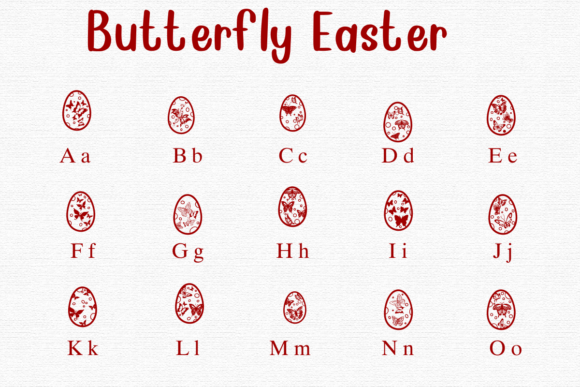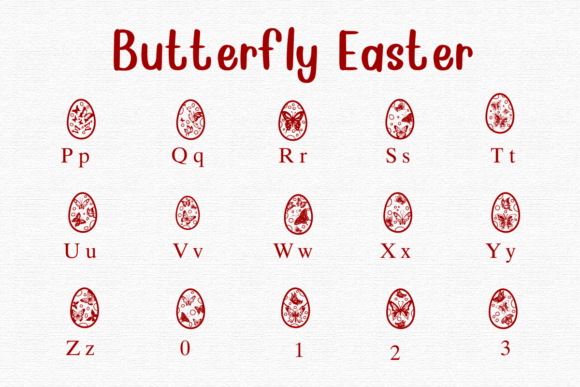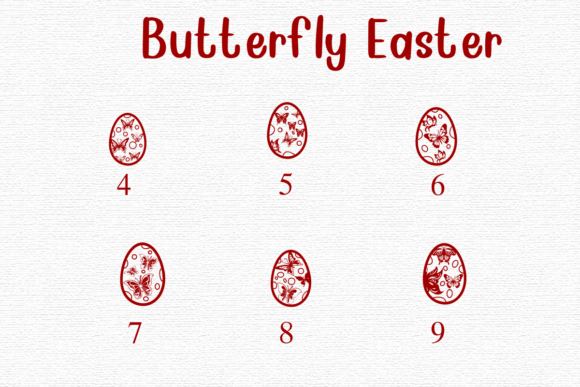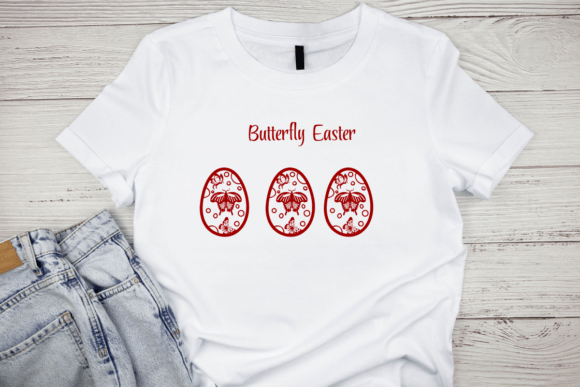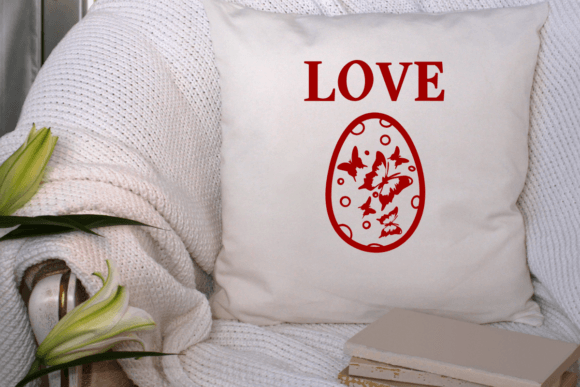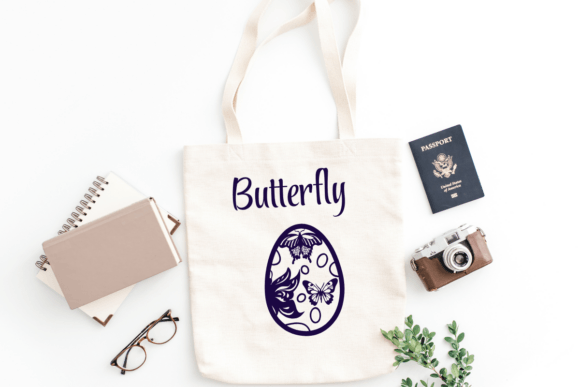
Introduction to Butterfly Easter Font
Butterfly Easter is a dingbat font with Easter eggs decorated with little butterflies.
This font can enhance your creative projects such as wedding invitations, DIY, crafts, decorations, logos, and many other creative ideas .